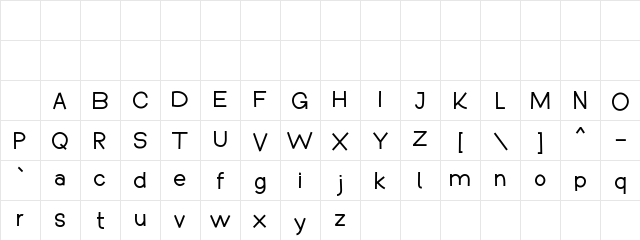
Heartwarming is a composed and adaptable typeface that performs quietly and consistently across a wide range of design contexts.
Pro Tip: Use Heartwarming in both headline and body roles to test its range before committing to a single application.